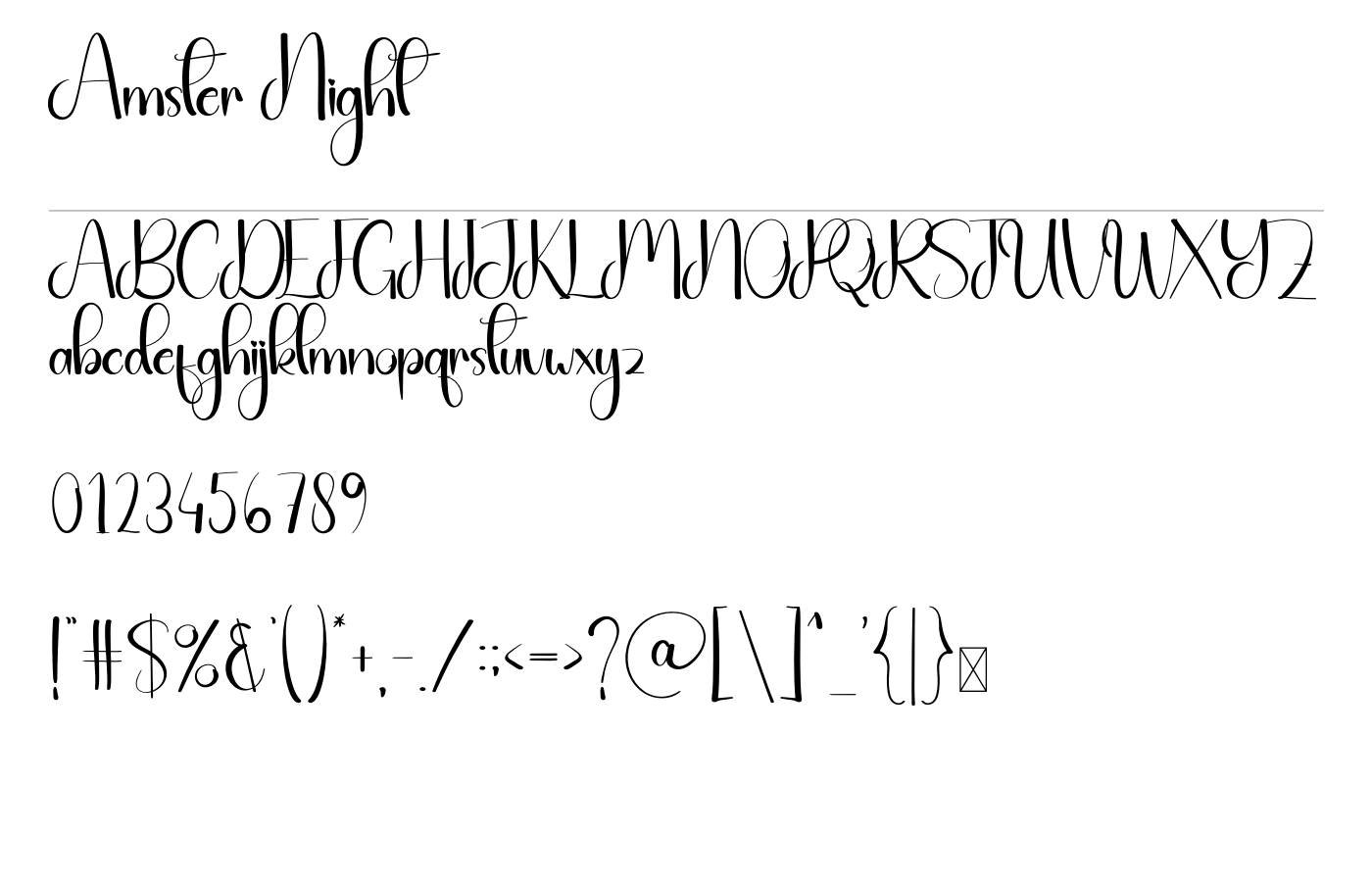
Amster Night is a delicate, handwritten script font with tall, slender letterforms and playful, curled strokes that give it a whimsical and elegant character. Its light weight and airy spacing make it ideal for invitations, greeting cards, and creative branding where a charming, personal touch is desired. This font works especially well in designs seeking a stylish yet approachable look, blending sophistication with a hint of fun.
Amster Night Font